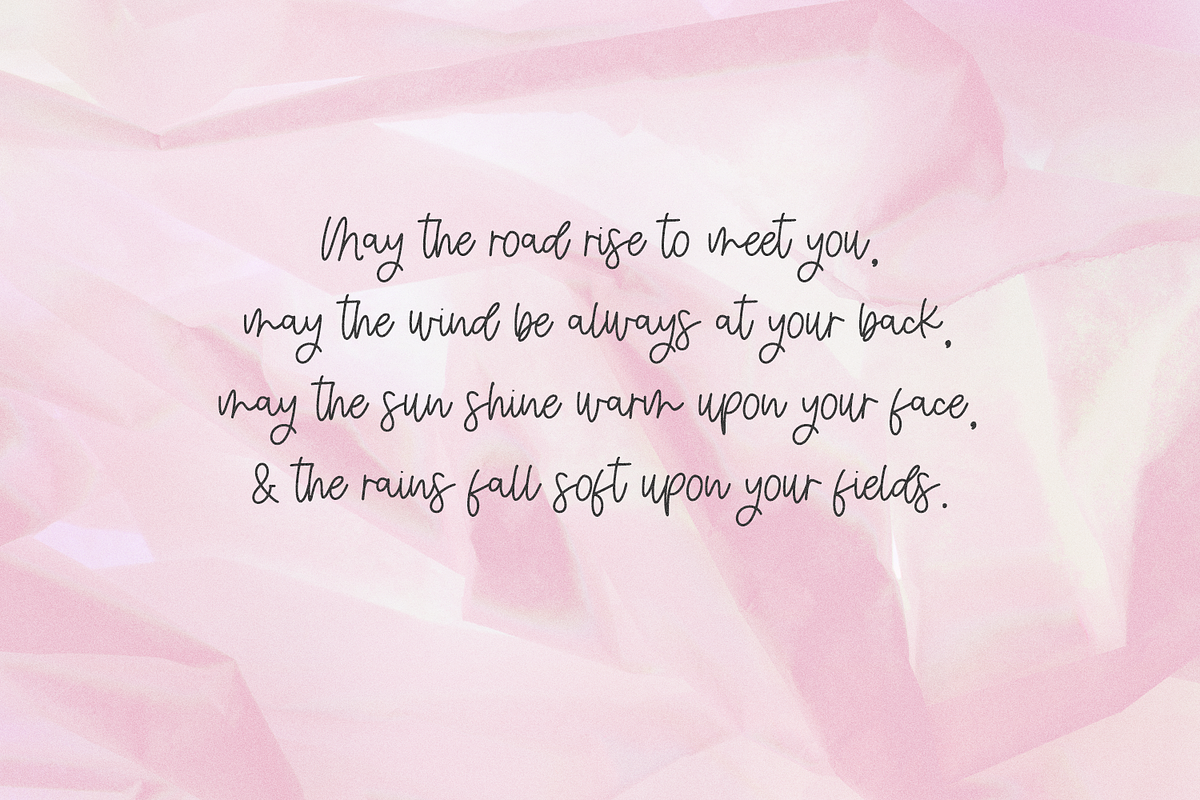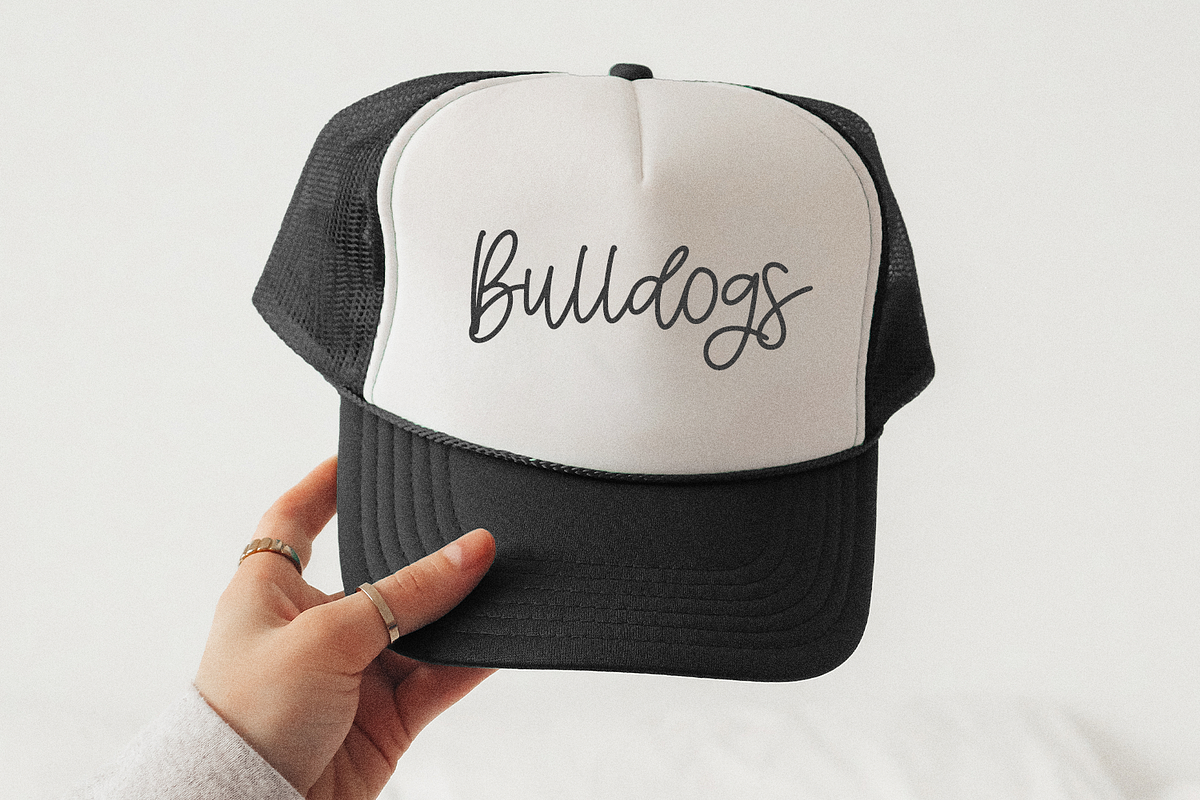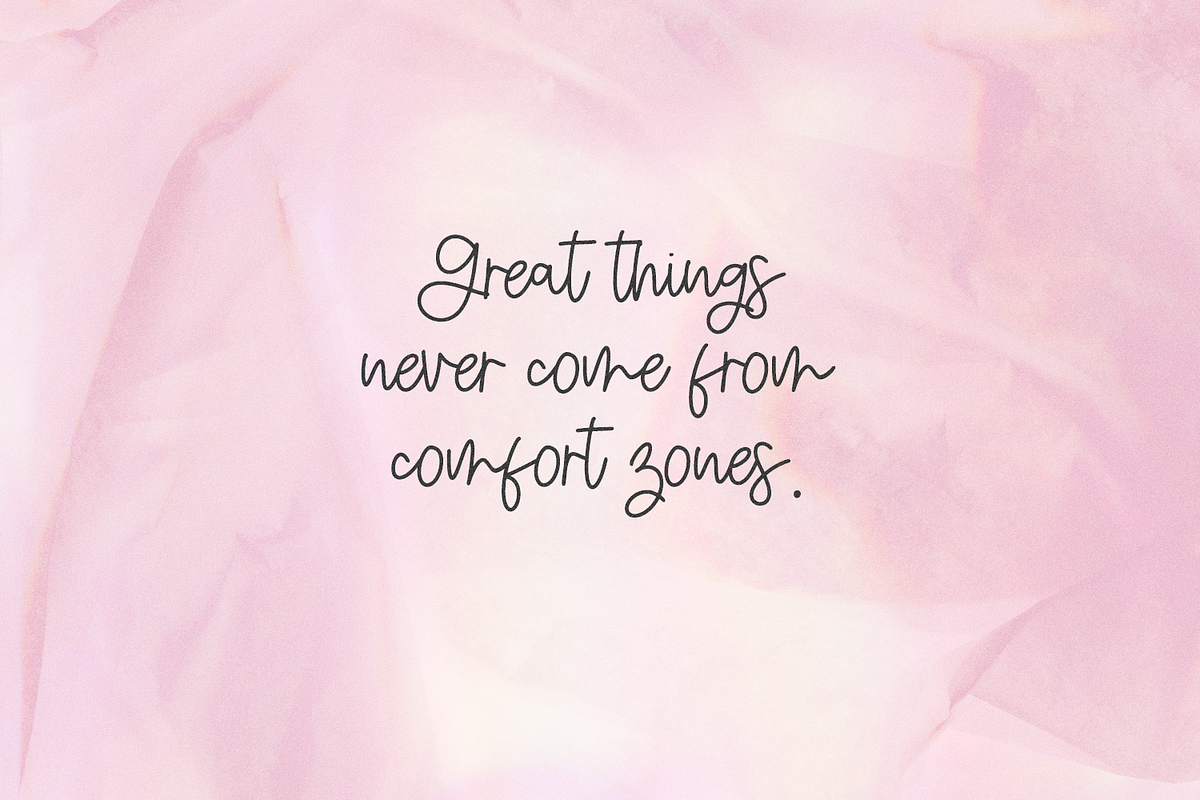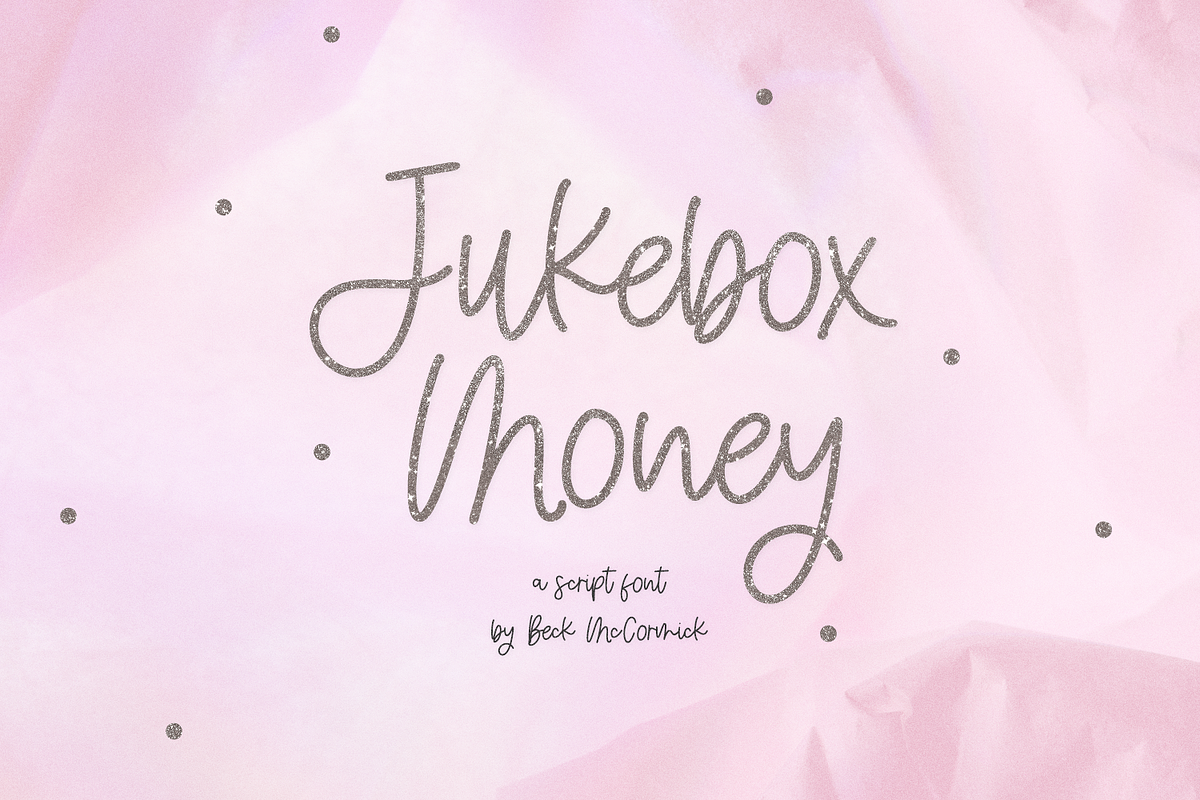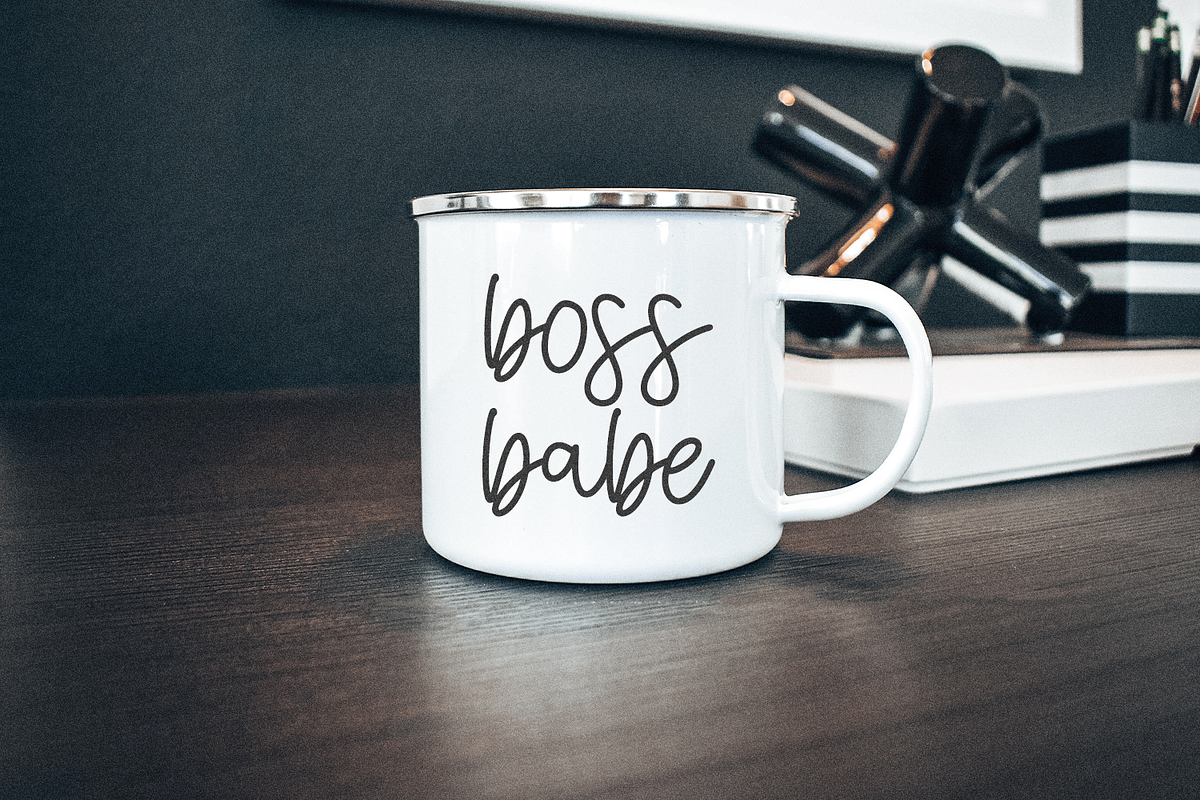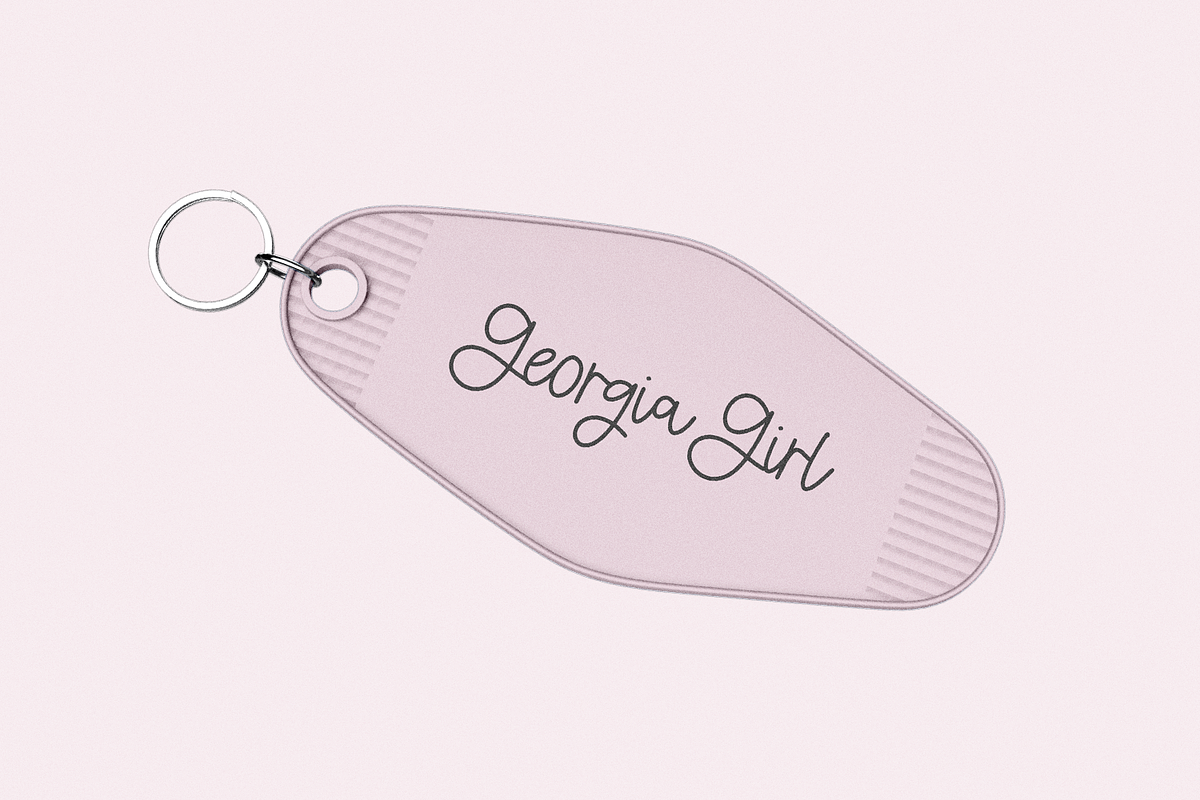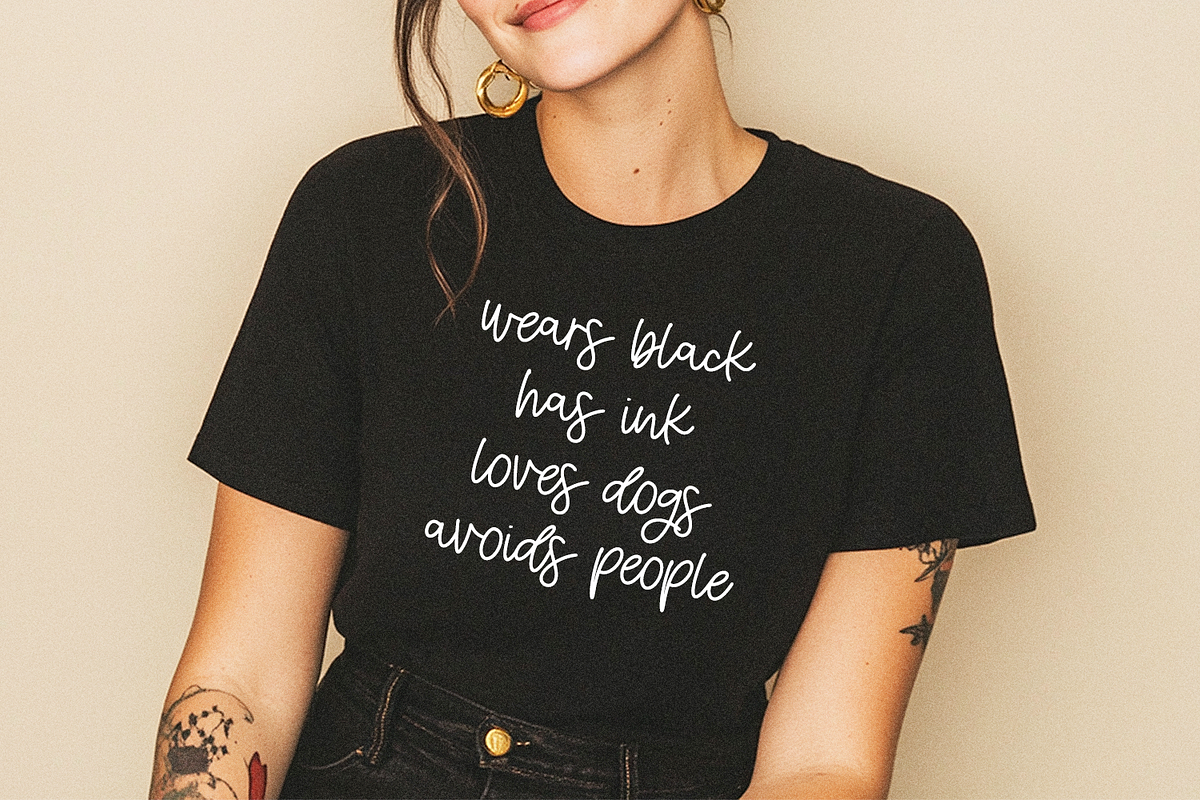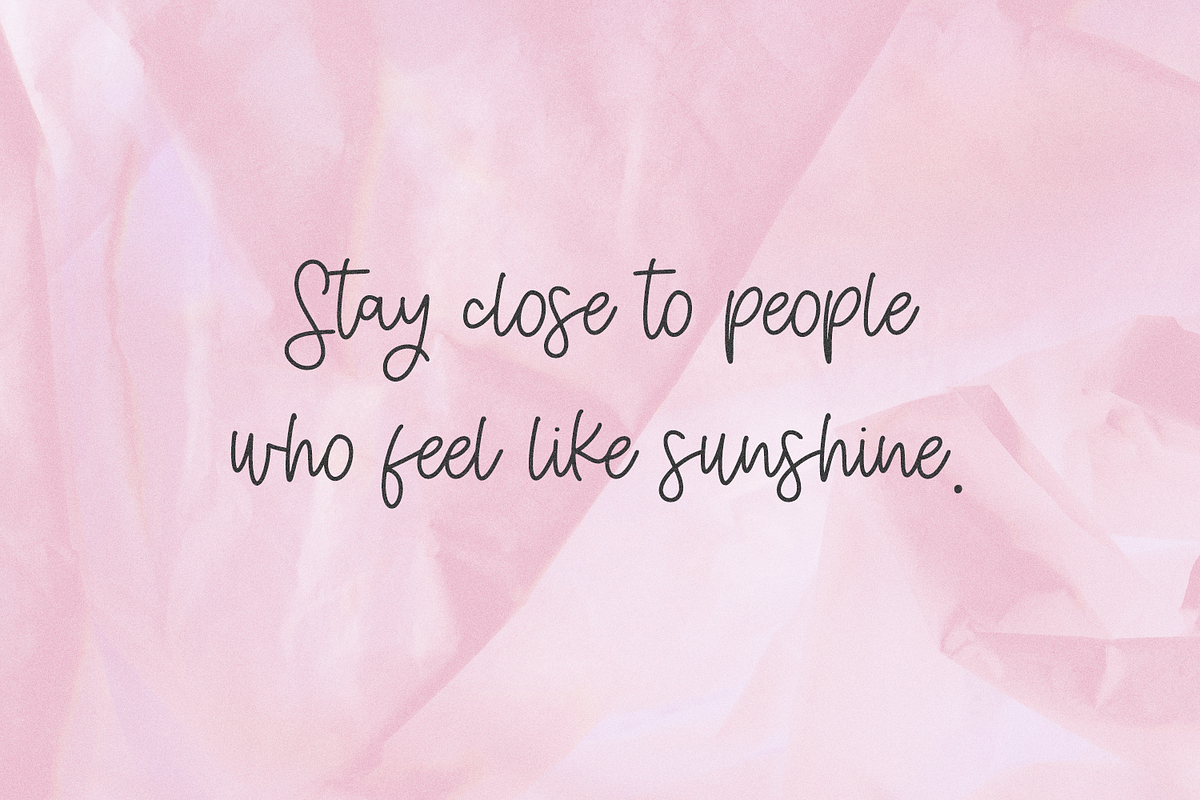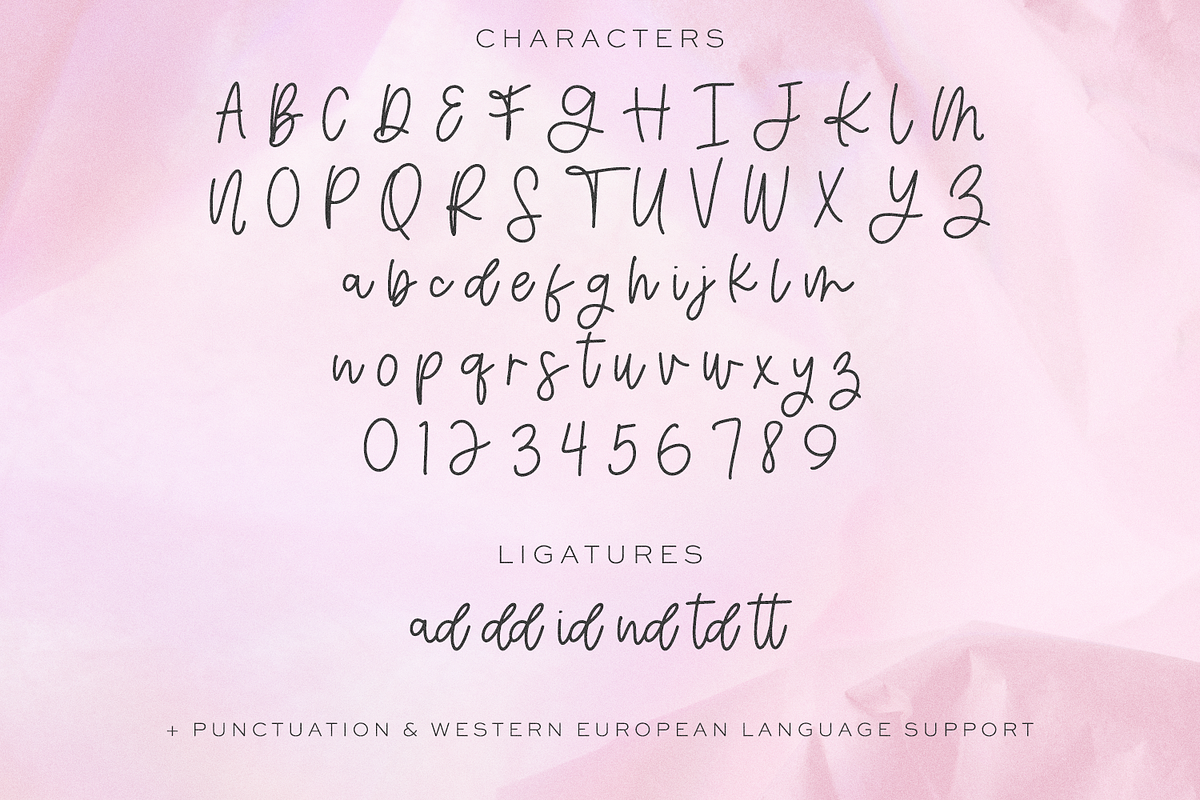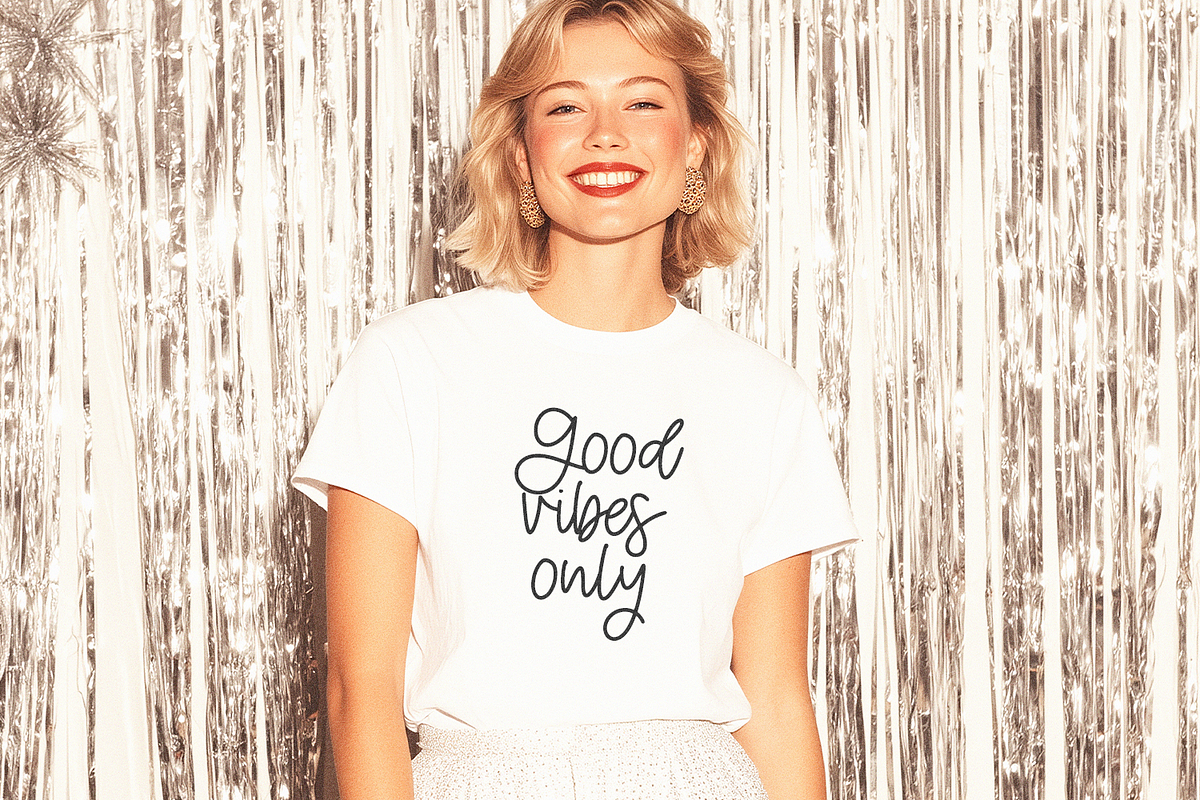
Jukebox Money Script
Jukebox Money Script is a cute script font. This cursive font has clean lines with a handwritten feel, which makes it perfect for logos & branding, greeting cards, painted banners, digital planners, note-taking apps, Canva, Cricut projects, Silhouette projects, designing SVG files, laser cutting projects, & more.
Jukebox Money Script includes:
- full upper + lowercase characters
- numbers + punctuation
- 6 ligatures - ad, dd, id, nd, td, tt
- PUA-encoding
- Western European language support - English, French, Spanish, Portuguese (Brazil), Portuguese (Portugal), Italian, German (Germany), German (Austria), Dutch, Danish, Swedish, Norwegian (Bokmål and Nynorsk), Finnish, Icelandic, Irish, Welsh